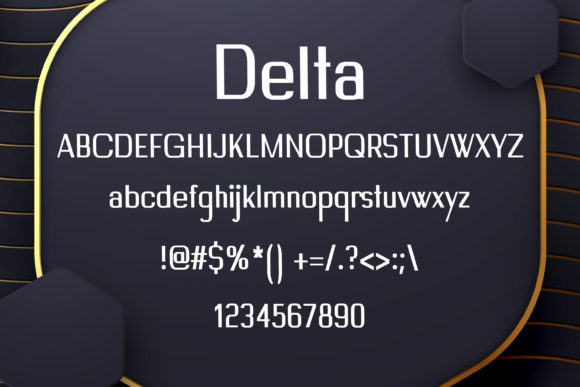
Discover the Power of Delta Font: Elevate Your Designs with a Simple yet Modern Sans Serif
In the world of typography, fonts play a crucial role in conveying messages, expressing emotions, and creating lasting impressions. For designers, crafters, and creative enthusiasts, finding the right font can be a game-changer. This is where Delta Font comes into play – a simple, modern sans serif font that can instantly elevate your creative projects and make them stand out. In this article, we’ll explore the features, benefits, and usage of Delta Font, and why it’s becoming a favorite among designers and crafters.
What is Delta Font?
Delta Font is a sleek and contemporary sans serif font designed to bring a touch of sophistication and elegance to your designs. Its clean lines, simple shapes, and minimalist aesthetic make it perfect for a wide range of creative projects, from branding and advertising to digital media and crafting. Delta Font is versatile, highly legible, and adaptable, making it an excellent choice for both digital and print applications.
Key Features of Delta Font
- Simple and Modern Design: Delta Font boasts a clean and minimalist design, making it easy to read and understand.
- Sans Serif: The font’s sans serif style gives it a sleek, contemporary look that’s perfect for modern designs.
- Highly Legible: Delta Font is optimized for readability, ensuring that your text is clear and easy to understand.
- Versatile: The font is suitable for a wide range of creative projects, from digital media to print materials.
Benefits of Using Delta Font
So, why choose Delta Font for your creative projects? Here are some benefits that make it an excellent choice:
- Enhances Readability: Delta Font’s clear and simple design ensures that your text is easy to read, even at small sizes.
- Boosts Visual Appeal: The font’s modern sans serif style adds a touch of sophistication and elegance to your designs.
- Increases Versatility: Delta Font can be used for a wide range of creative projects, from branding and advertising to digital media and crafting.
How to Use Delta Font in Your Designs
Using Delta Font in your designs is easy and straightforward. Here are some tips to get you started:
- Pair it with Other Fonts: Combine Delta Font with other fonts to create a unique and visually appealing typography.
- Experiment with Colors: Try different colors and gradients to add depth and interest to your designs.
- Play with Sizes: Use Delta Font in various sizes to create visual hierarchy and emphasize important information.
- Add Texture and Patterns: Add texture and patterns to your designs to give them a tactile and organic feel.
Who Can Benefit from Delta Font?
Delta Font is perfect for a wide range of designers, crafters, and creative enthusiasts, including:
- Graphic Designers: Use Delta Font to create stunning branding, advertising, and marketing materials.
- Digital Artists: Add Delta Font to your digital art and illustrations for a modern and sleek look.
- Crafters: Use Delta Font to create beautiful and eye-catching crafts, such as cards, invitations, and DIY projects.
- Web Designers: Use Delta Font to create clean and modern website designs that are easy to read and navigate.
In conclusion, Delta Font is a simple yet powerful sans serif font that can elevate your creative projects and make them stand out. With its clean design, high legibility, and versatility, Delta Font is perfect for designers, crafters, and creative enthusiasts looking to add a touch of modern sophistication to their work. Try Delta Font today and discover the difference it can make in your designs!